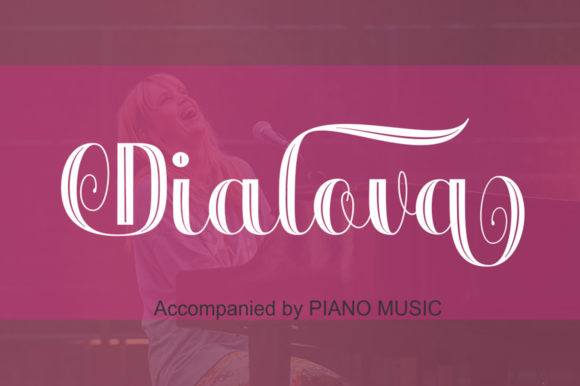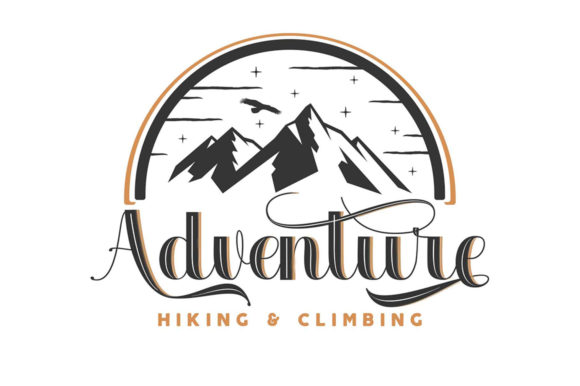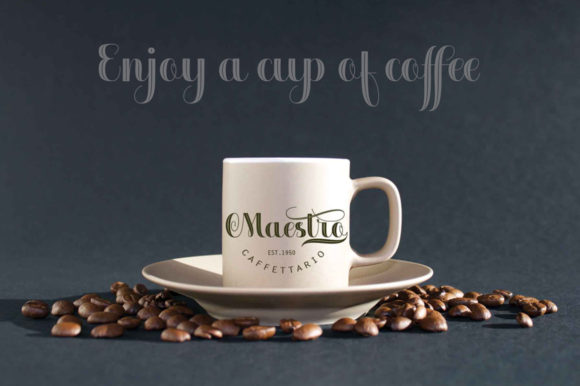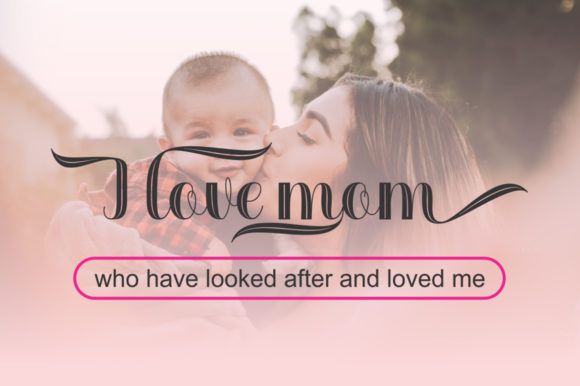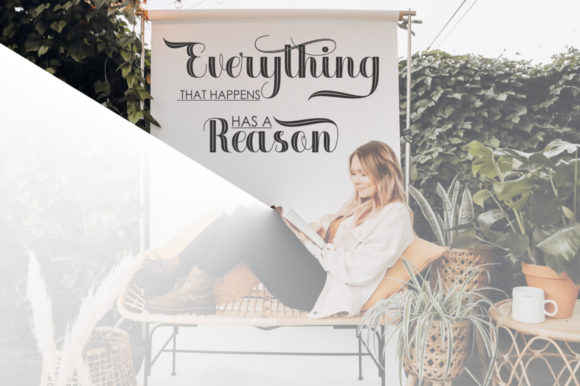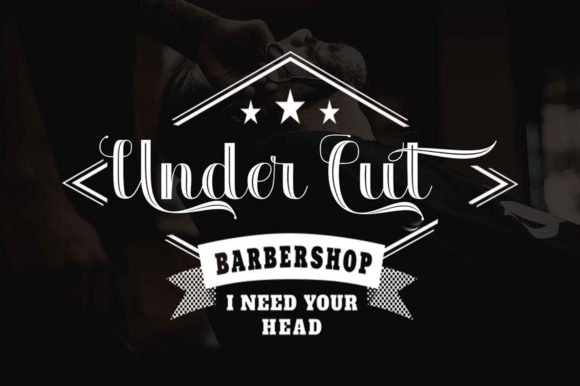
Baby Azalea Font: The Perfect Handwritten Font for Designers and Crafters
In the world of design, fonts play a crucial role in conveying the tone and personality of a project. For designers and crafters looking for a unique and versatile font, Baby Azalea is an excellent choice. This handwritten font is perfect for a variety of applications, including crafting, digital designing, presentations, and greeting card making.
What Makes Baby Azalea Font So Special?
Baby Azalea is an one-of-a-kind handwritten font that boasts an incredibly versatile style. Its unique charm and character make it an ideal choice for designers and crafters who want to add a personal touch to their projects. Whether you’re creating a digital design, a handmade craft, or a presentation, Baby Azalea is sure to impress.
Key Features of Baby Azalea Font
- Unique Handwritten Style: Baby Azalea features a distinctive handwritten style that sets it apart from other fonts.
- PUA Encoded: This font is PUA encoded, making it easy to access all glyphs and swashes.
- Versatile: Baby Azalea is perfect for a wide range of applications, including crafting, digital designing, presentations, and greeting card making.
Why Designers and Crafters Love Baby Azalea Font
Designers and crafters love Baby Azalea font for its flexibility and ease of use. The font’s unique style and PUA encoding make it easy to create stunning designs and projects. Here are just a few reasons why Baby Azalea is a favorite among designers and crafters:
- Ease of Use: Baby Azalea is easy to use, even for those who are new to designing or crafting.
- Customization Options: With PUA encoding, designers and crafters can easily access glyphs and swashes to customize their projects.
- Time-Saving: Baby Azalea’s versatility and ease of use save designers and crafters time, allowing them to focus on other aspects of their projects.
How to Use Baby Azalea Font in Your Projects
Using Baby Azalea font in your projects is easy. Here are a few ideas to get you started:
- Crafting: Use Baby Azalea to create personalized cards, scrapbook pages, and other handmade crafts.
- Digital Designing: Add Baby Azalea to your digital designs, such as brochures, flyers, and social media graphics.
- Presentations: Use Baby Azalea to create engaging and professional-looking presentations.
- Greeting Card Making: Create personalized greeting cards for special occasions using Baby Azalea.
Tips and Tricks for Getting the Most Out of Baby Azalea Font
Here are a few tips and tricks to help you get the most out of Baby Azalea font:
- Experiment with Different Sizes and Colors: Try out different sizes and colors to see how Baby Azalea looks in different contexts.
- Pair with Other Fonts: Pair Baby Azalea with other fonts to create unique and interesting combinations.
- Use Glyphs and Swashes: Take advantage of Baby Azalea’s PUA encoding to access glyphs and swashes and add extra flair to your projects.
Baby Azalea font is a unique and versatile handwritten font that’s perfect for designers and crafters. With its PUA encoding and incredibly versatile style, it’s easy to create stunning designs and projects. Whether you’re a seasoned designer or a crafter just starting out, Baby Azalea is sure to become a favorite in your toolkit.